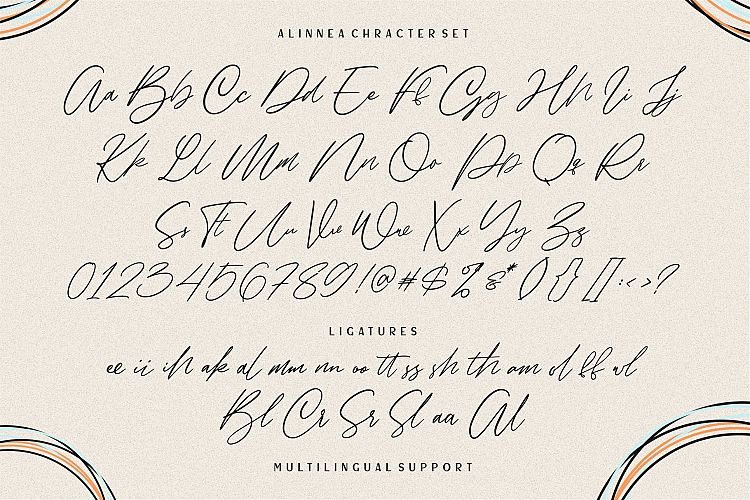
Alinnea Signature Font
Hello Guys! Thank you for looking Alinnea Typeface. A fabulously fun yet modern and elegant script font with tons of energy, allowing you to create beautiful hand-made typography in an instant! Alinnea design and shared by Garisman Studio. Alinnea Signature Font is a natural signature font, this font Is perfect for logo, invitation, stationery, wedding designs, social media posts, advertisements, product packaging, product designs, label, photography, watermark, special events or anything.